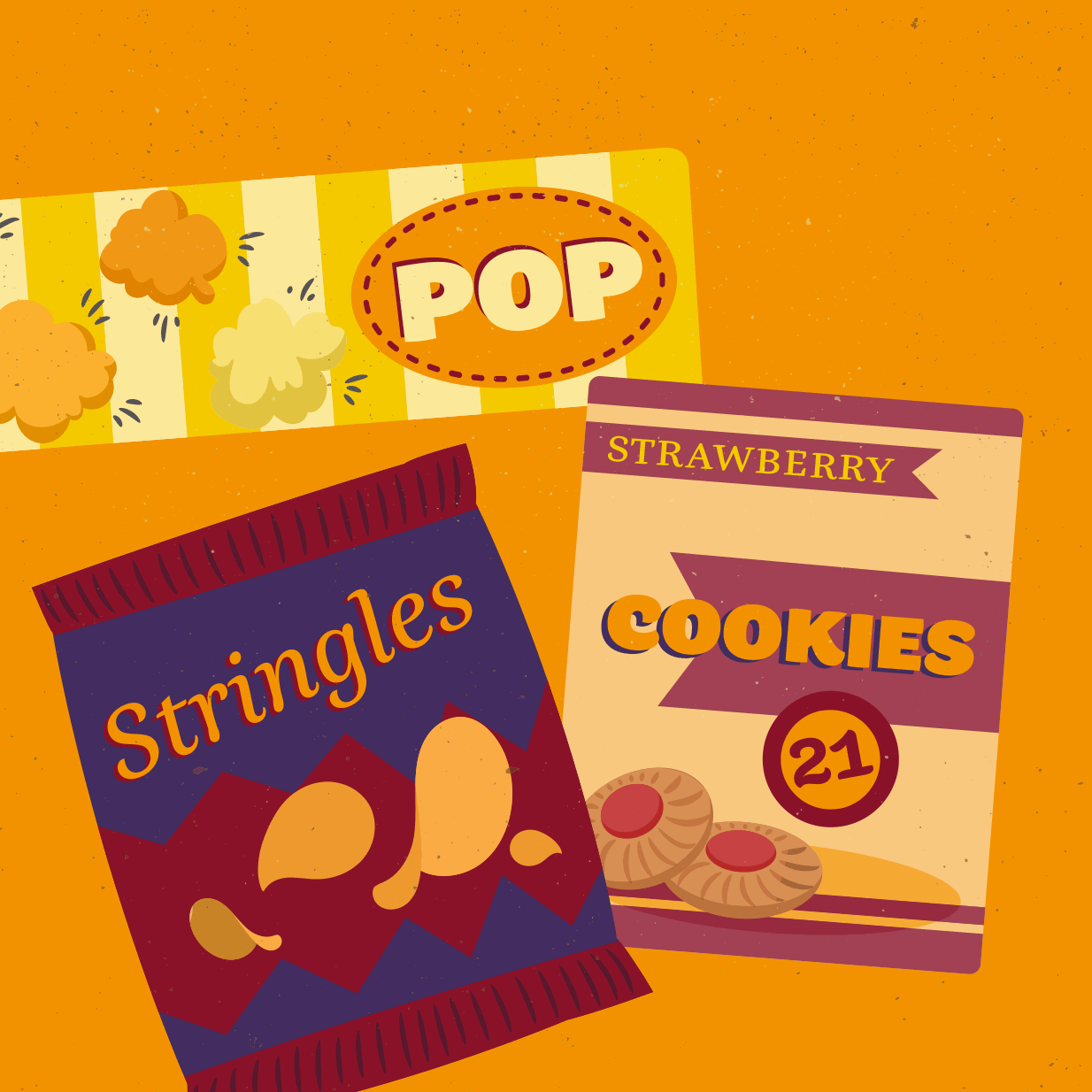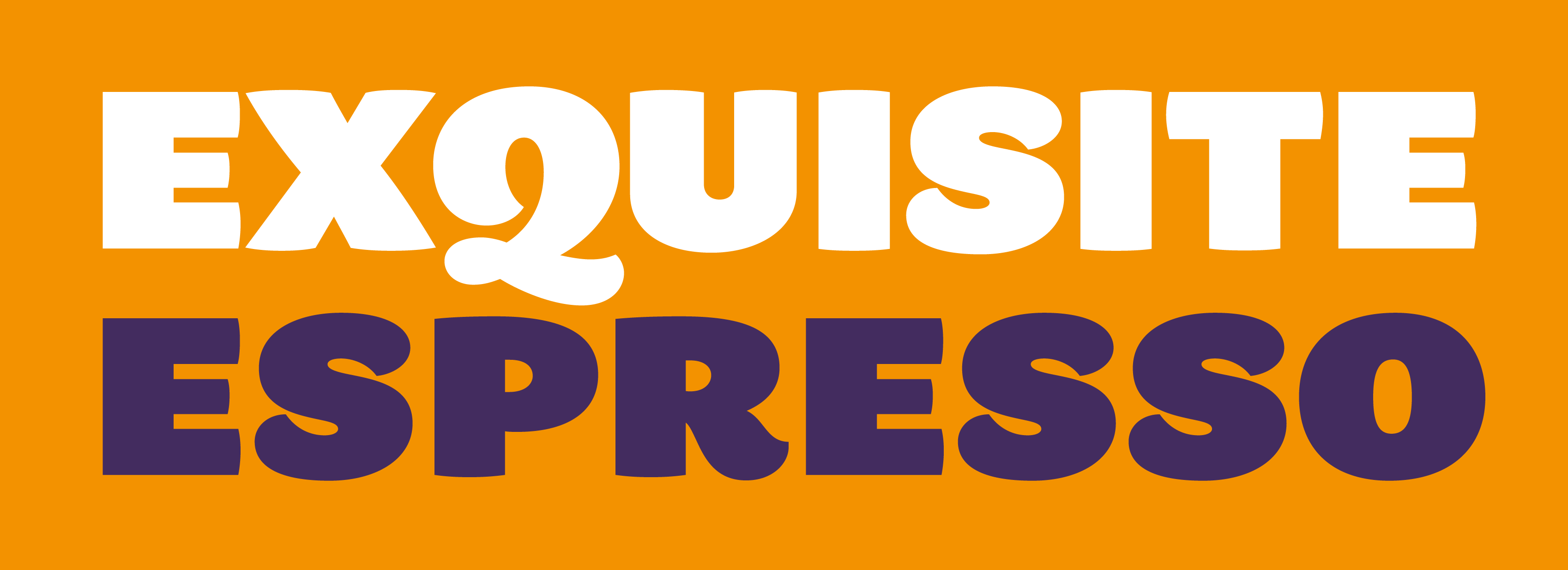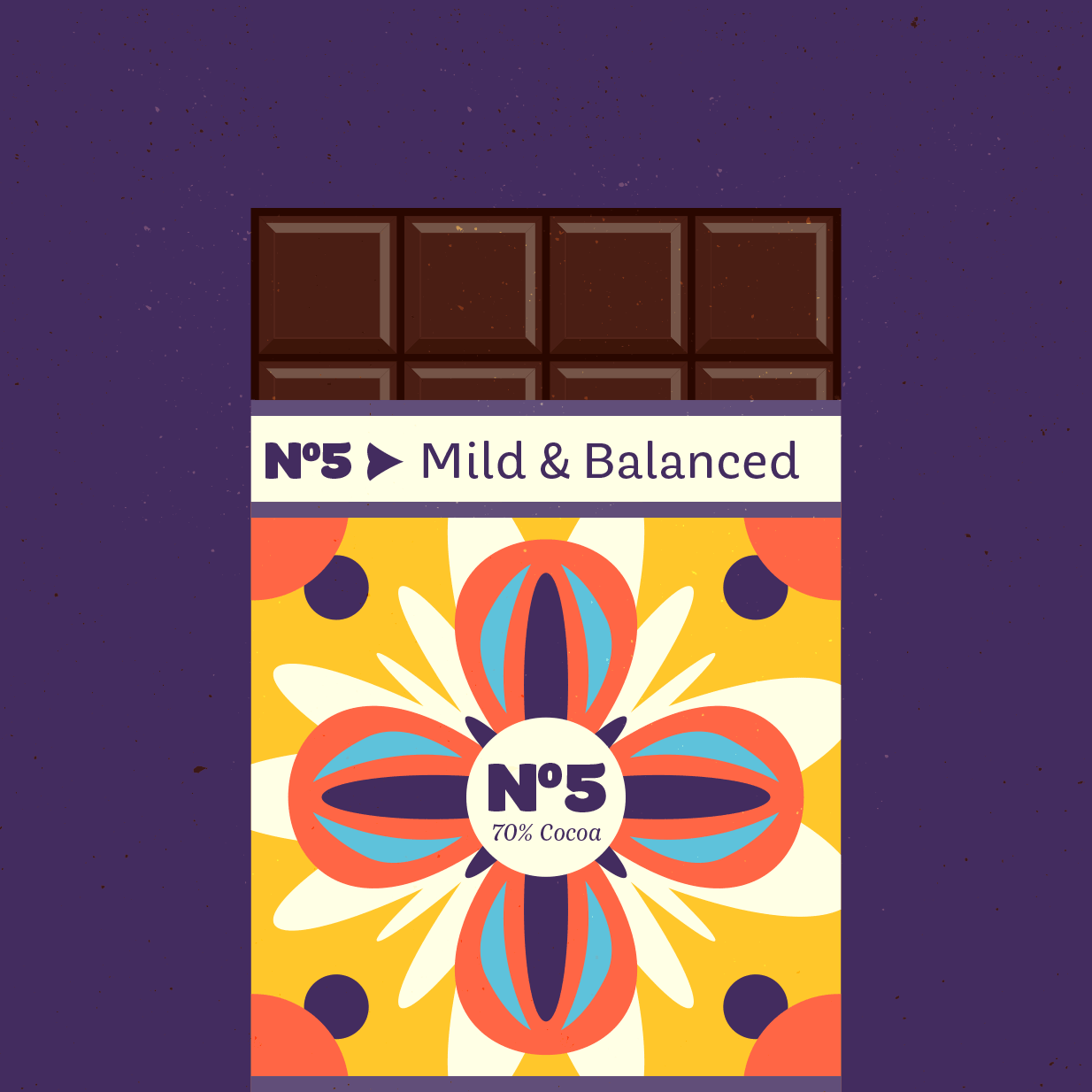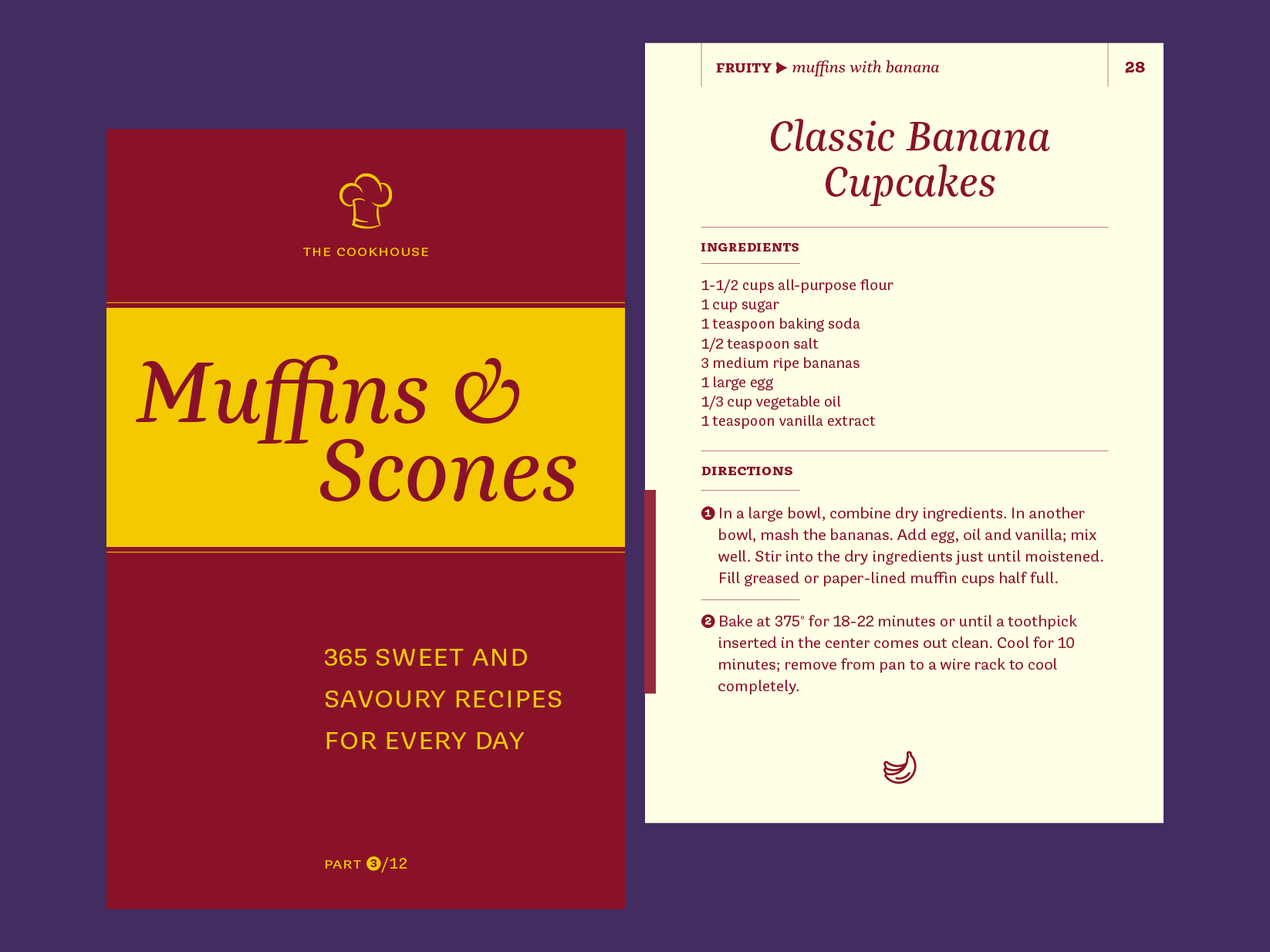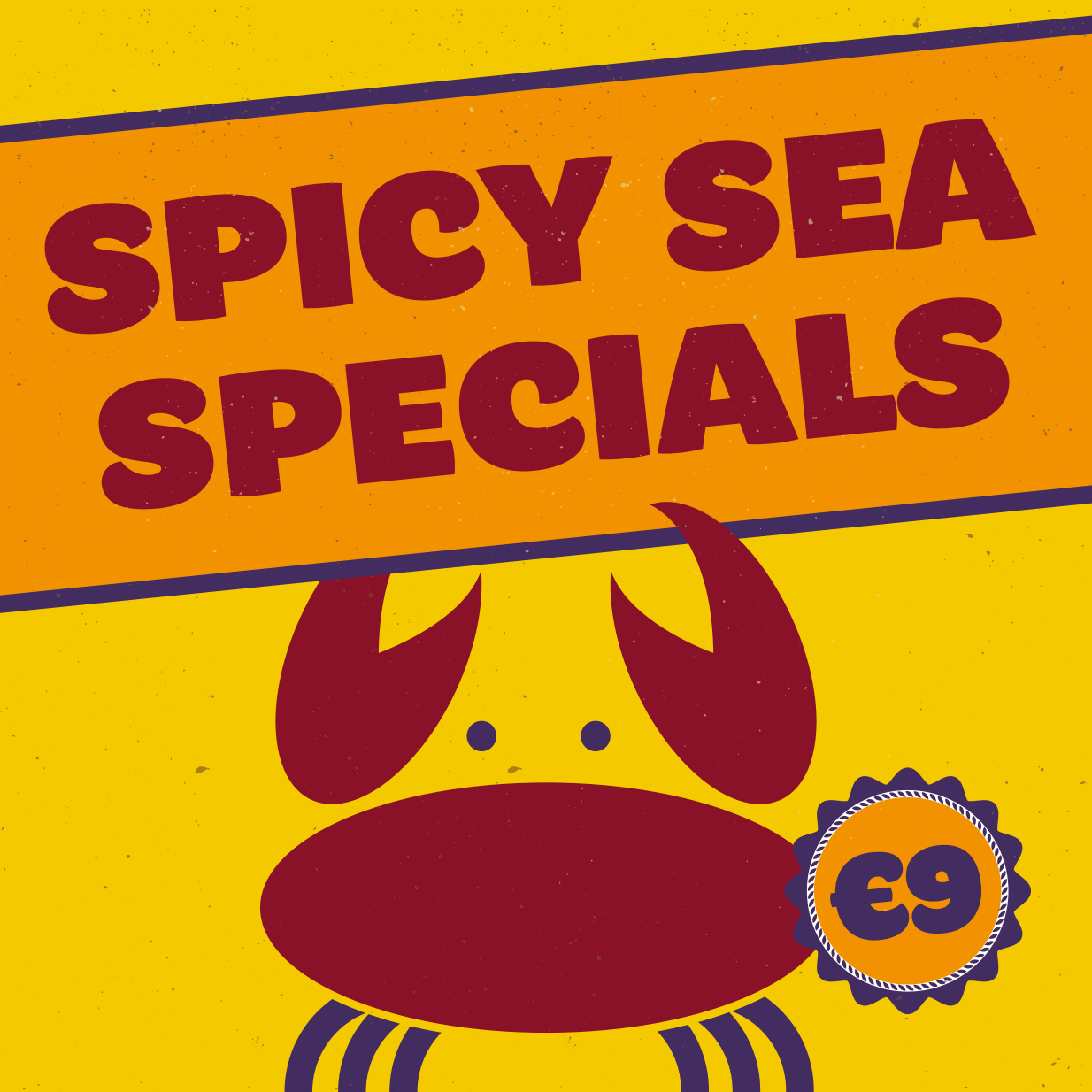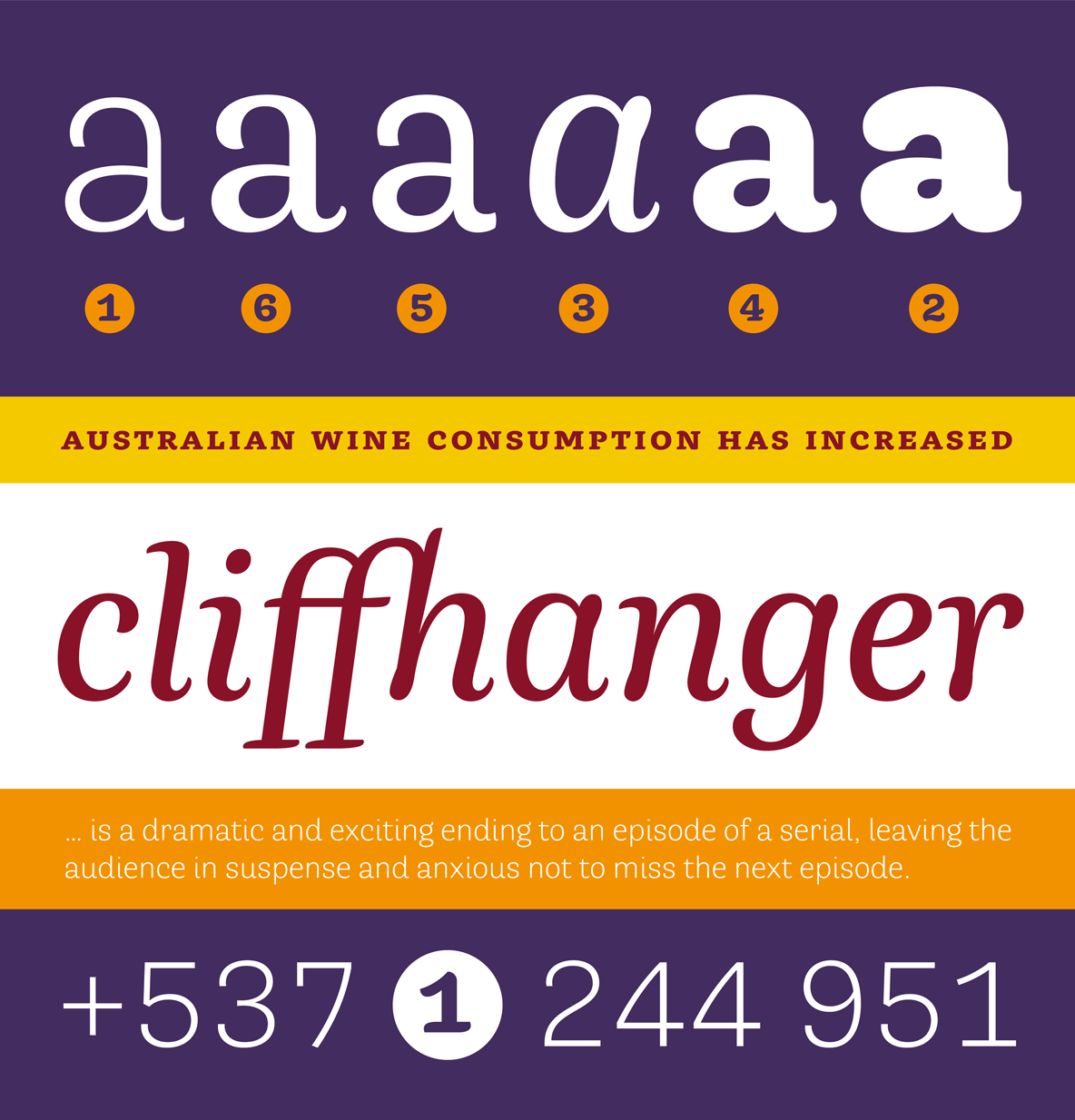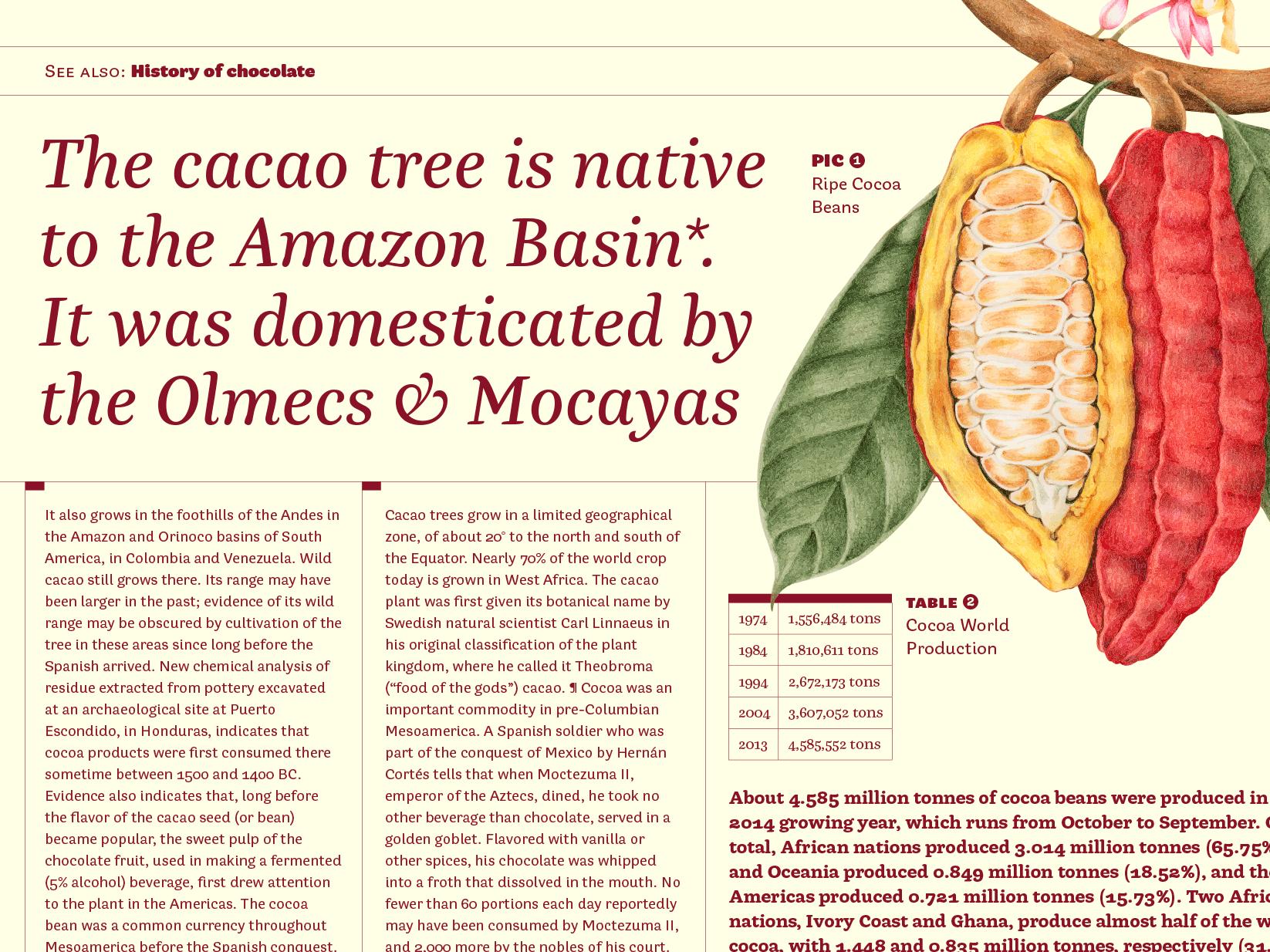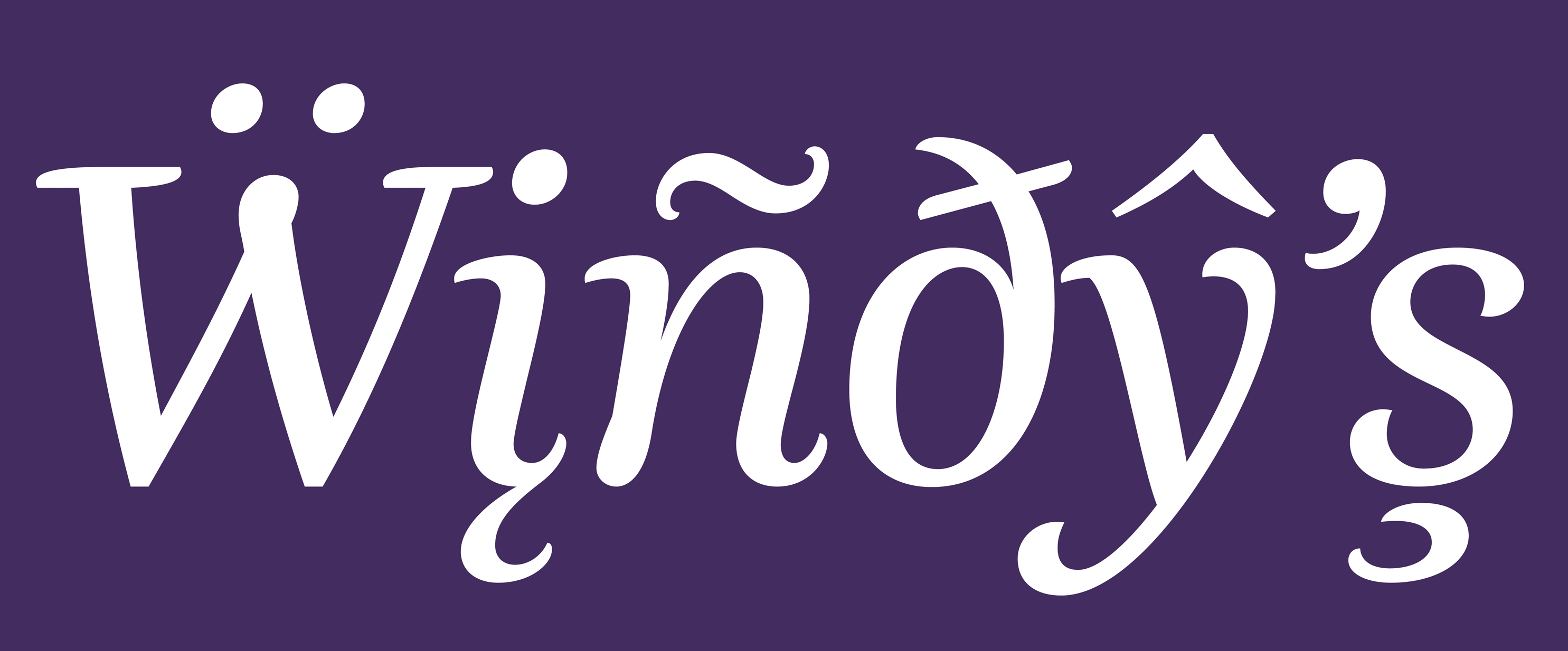
Buendia
Buendia is an exploration into what a type family can be beyond the traditional suite of progressive weights and widths. It is the graduation project from César Puertas when he was enrolled at the KABK Type & Media master course. He structured his unique series into six styles with distinct but matching flavors: grotesque, rounded, slab-serif and transitional — all based on the same skeleton but with different finishing. The weights range from a thin and medium sans, via the elegant roman and italic serifs, a cosy bold slab, to the extra beefy rounded sans.
“In Buendia, each member of the family is a different person, not just the same one who gained or lost weight.” The series tries to provide as many different design variants as possible within a single concept to give designers a compact but flexible set of options. Nevertheless, all styles have certain features in common, for instance the closed apertures, swashy tails and curls, and the slightly curved diagonals. These contribute to a warmth and playfulness that makes Buendia especially suited for packaging design, advertising, books and editorial design.
All styles of Buendia come with extended Latin character-set, as well as OpenType features such as small caps, ligatures, and different sets of numerals.